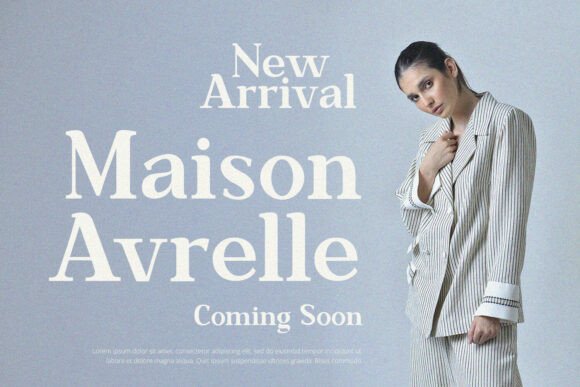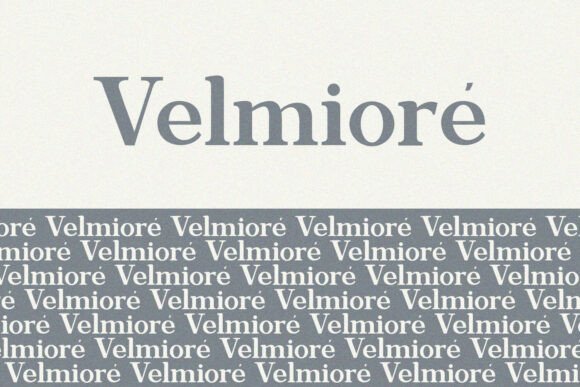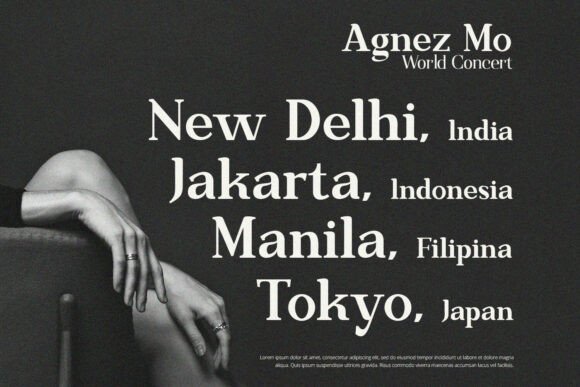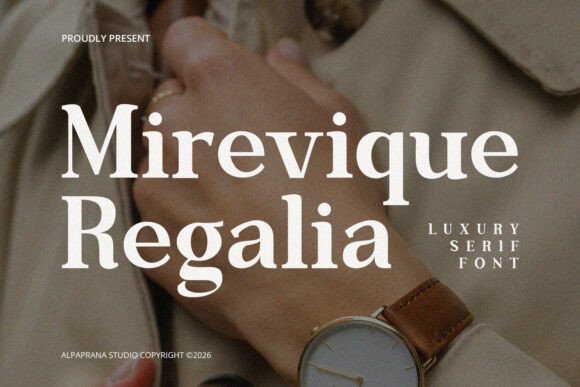
Introduction to Mirevique Regalia Font
Mirevique Regalia is serif font with elegant and modern feels.
It will be perfectly used for Branding, Logo Design, Lettering, Logotype, Clothing, Poster, magazine, packaging, posters, shopping bags, t-shirts, book covers, photography, special events and other design project Product Content : – Mirevique Regalia (otf-ttf-woff) Features : – Uppercase & Lowercase – Numerals – Punctuations (OpenType Standard) – Accents (Multilingual Characters) – Ligatures and Alternative Style Stylistic Set – Works on PC & Mac – Simple installations I hope you enjoy this font.
Key Features of Mirevique Regalia Font
Why Choose Mirevique Regalia Font?
Mirevique Regalia Font offers exceptional quality and versatility, making it a valuable addition to your design toolkit. Whether you’re creating for personal projects or commercial use, Mirevique Regalia Font delivers professional results.